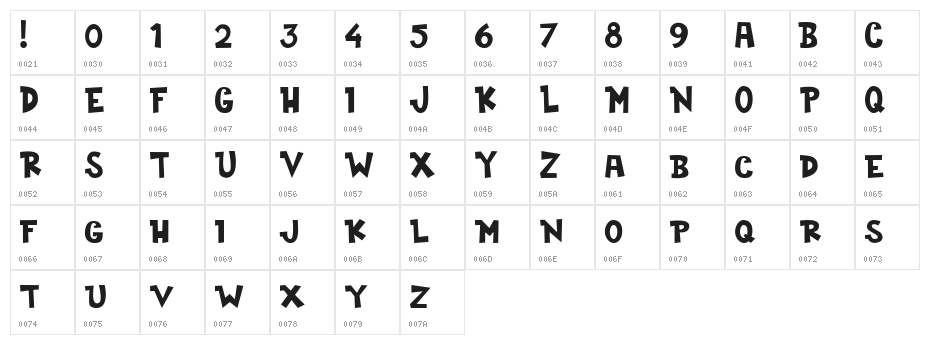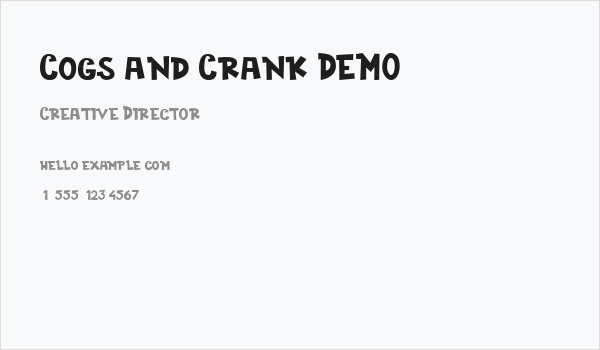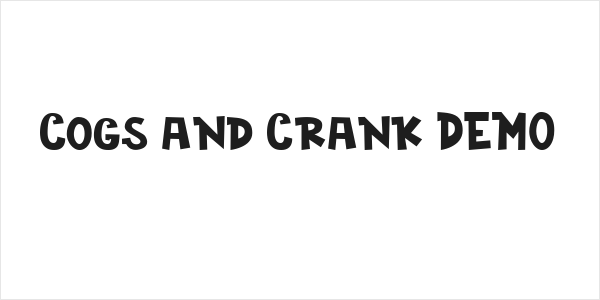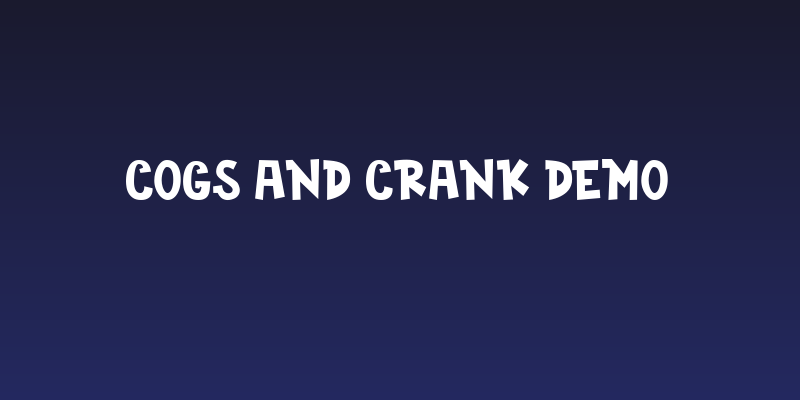
Cogs and Crank DEMO Font
Cogs and Crank DEMO Description
This font features a playful and bold design with exaggerated curves and angles, giving it a whimsical and energetic appearance. The characters are wide and have a slightly uneven baseline, adding to the quirky and dynamic feel. The strokes are thick and consistent, providing a strong visual impact. The font is highly legible and stands out due to its distinctive style, making it suitable for creative and informal applications.
| Proposed Projects | Ideal for children's books, comic strips, playful branding, and event posters. |